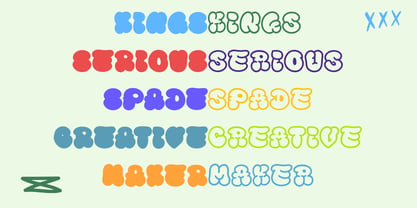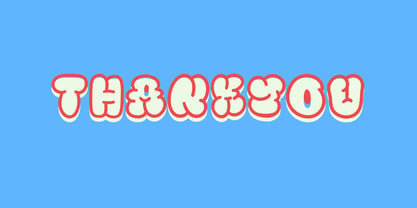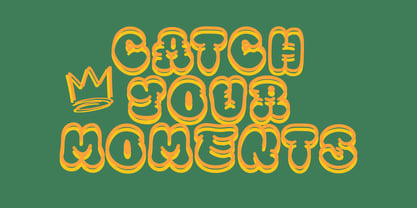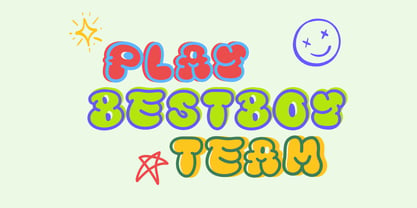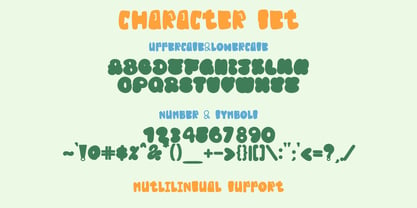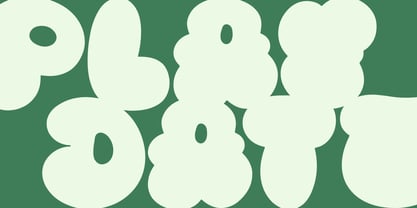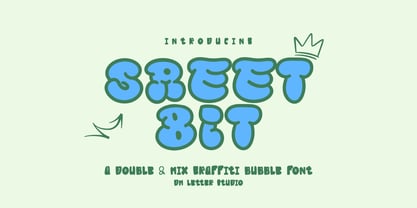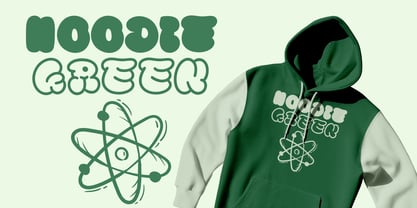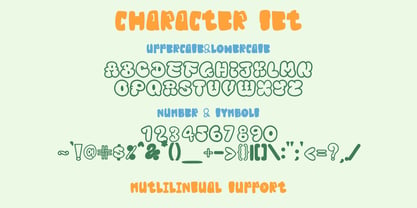
Street Bit
by DM Studio
The Street Bit Font Family was designed by Dimas Prasetyo and published by DM Studio. Street Bit contains 2 styles and family package options. More about this family
Meet Streetbit, the Double Mixed Graffiti Bubble Font Streetbit is a bold graffiti bubble display font designed to bring playful street energy into your designs. The letterforms are chunky, rounded, and expressive, combining bubble style with urban graffiti attitude. Streetbit features double and mixed styles, giving you more flexibility to create layered, standout lettering that feels dynamic and street-inspired. Use Streetbit for streetwear branding, gaming graphics, YouTube thumbnails, sticker designs, hip hop posters, and bold merchandise. As a result, your typography feels energetic, urban, and instantly eye-catching.   Why Streetbit sells First, Streetbit installs quickly and works smoothly in Canva, Photoshop, and Illustrator. Next, the double mixed style allows designers to create layered effects and playful outlines with minimal effort. Then layouts come together faster because the bubble graffiti structure already adds personality and motion. Moreover, graffiti bubble typography continues to trend across streetwear, gaming, and youth culture niches. Therefore, Streetbit fits perfectly into modern urban display font collections.   Fast layouts with the Streetbit Font Start with short, punchy words for maximum impact. After that, combine the mixed styles to create layered graffiti effects or bold headline treatments. Because the shapes are chunky and expressive, keep backgrounds simple to maintain readability. In addition, pair it with a clean sans serif for captions or supporting text. Finally, try palettes like black and neon green, purple and cyan, orange and white, or red and yellow for energetic street contrast.   Creative uses and quick wins Streetwear logos and apparel graphics YouTube thumbnails and gaming titles Hip hop posters and music event flyers Sticker packs and urban social media graphic   What you get Double and mixed font styles Uppercase and lowercase letters Numbers and basic punctuation Design tips for Streetbit Use this font for headlines, logos, and bold display phrases instead of long paragraphs. Also, experiment with outlines, shadows, or layered color treatments to amplify the graffiti bubble look. For print, choose strong high-contrast color combinations for clarity. For digital designs, scale slightly larger so the rounded shapes remain crisp on smaller screens. Finally, combine it with paint splashes, spray textures, or geometric shapes for a stronger street personality.
Designers: Dimas Prasetyo
Foundry: DM Studio